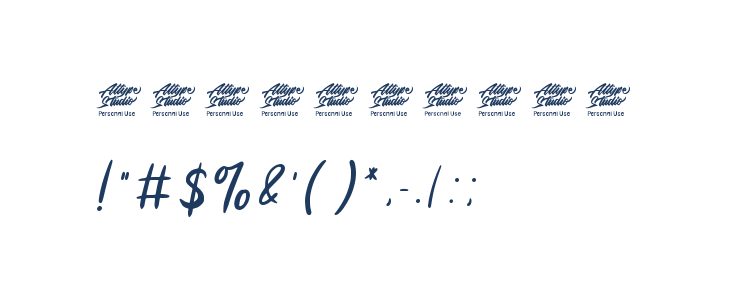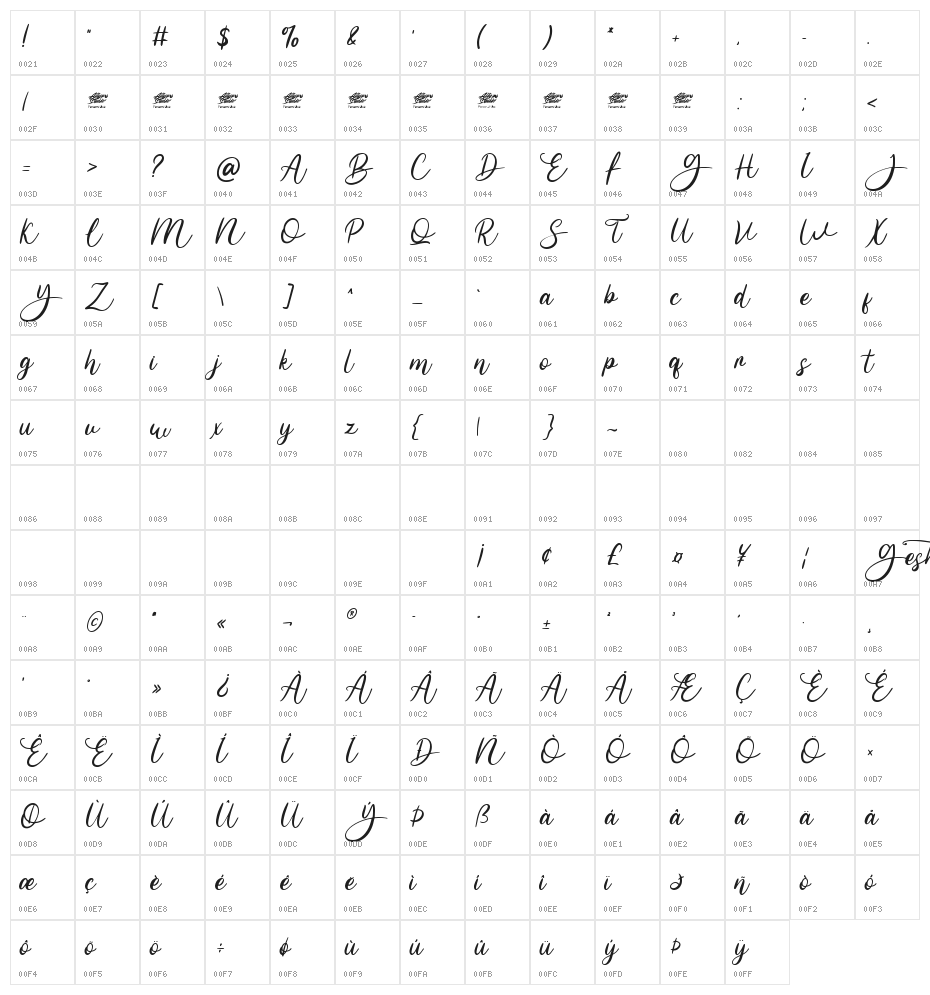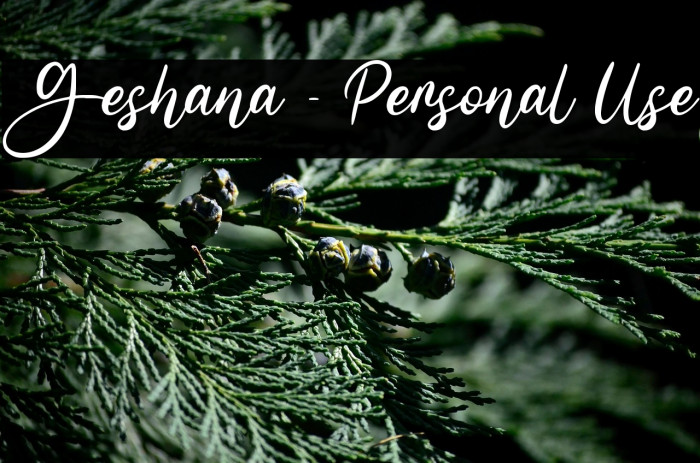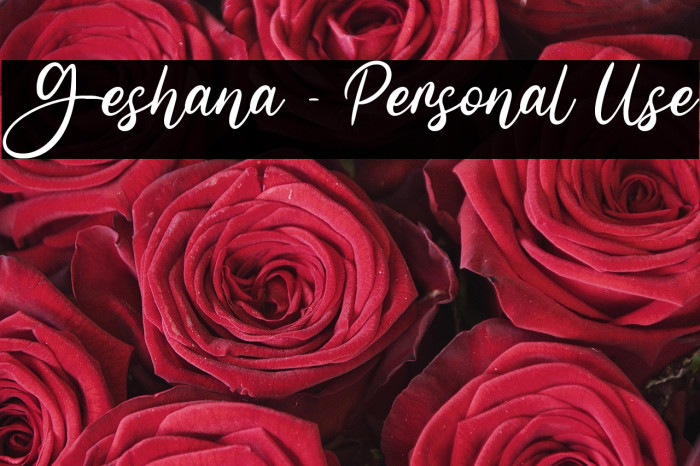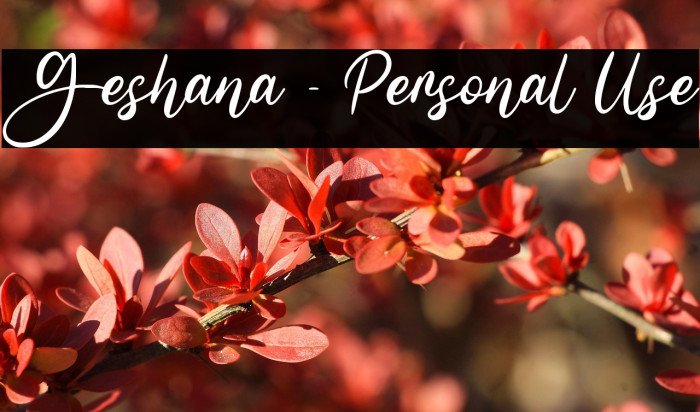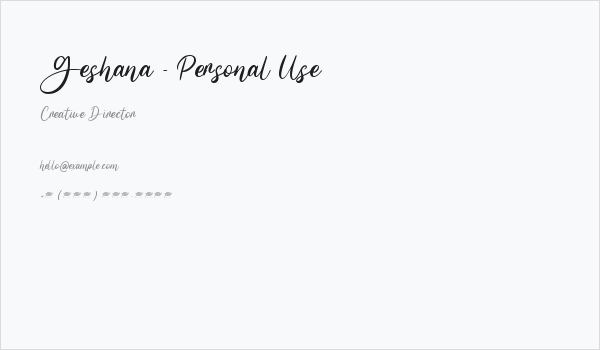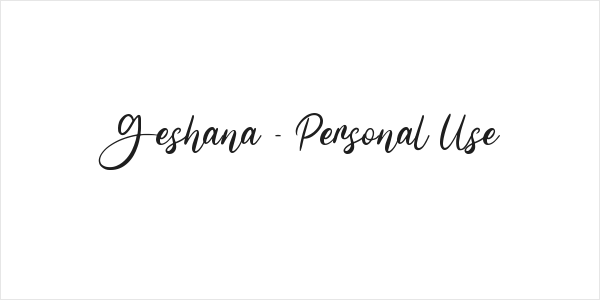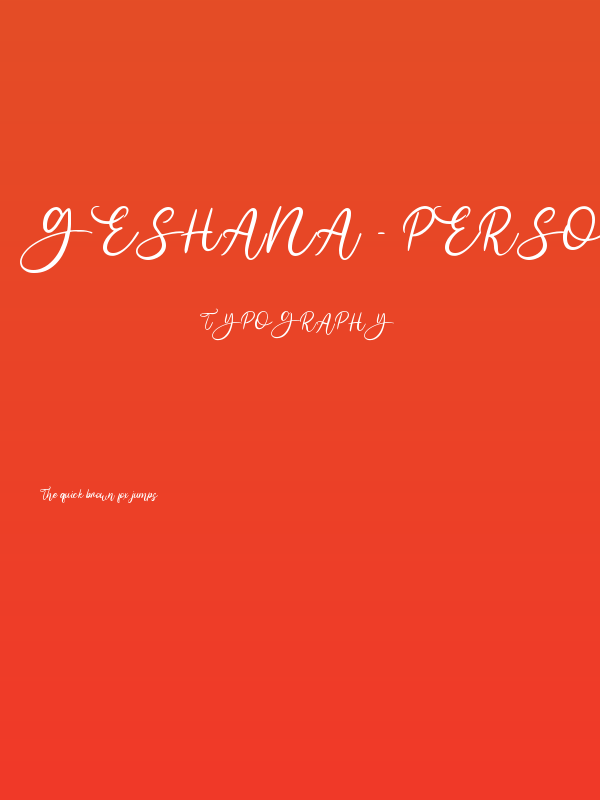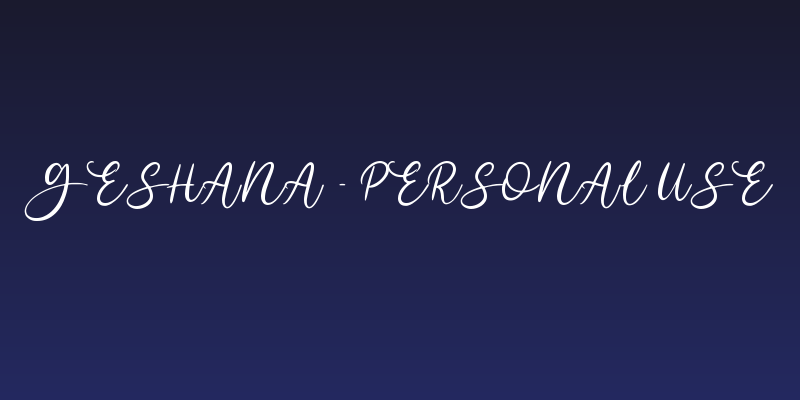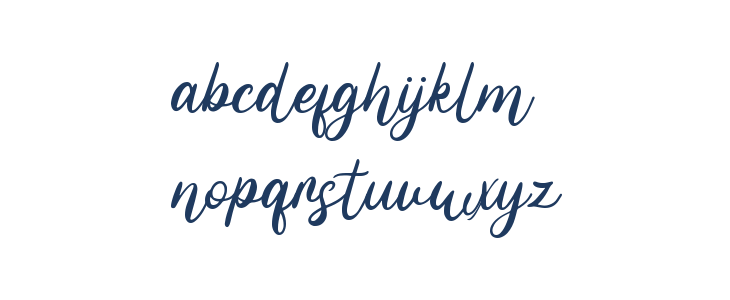
Geshana - Personal Use Font
Geshana - Personal Use Description
This font exudes a modern and elegant script style, characterized by its fluid and graceful letterforms. The uppercase letters are tall and slightly slanted, with sweeping curves that give a sense of movement and sophistication. The lowercase letters maintain a consistent flow, with rounded edges and smooth connections between strokes. The overall appearance is both stylish and approachable, making it suitable for a variety of design applications. The numerals and special characters are crafted with the same attention to detail, ensuring a cohesive look across all elements. This font is perfect for adding a personal touch to any project, whether it's for branding, invitations, or social media graphics.
| Use Case | Logos, Invitations, Social media graphics |
| Proposed Projects | Ideal for wedding invitations, branding, social media graphics, and personal stationery. |